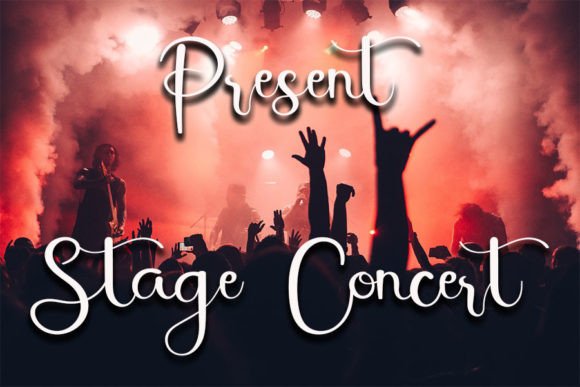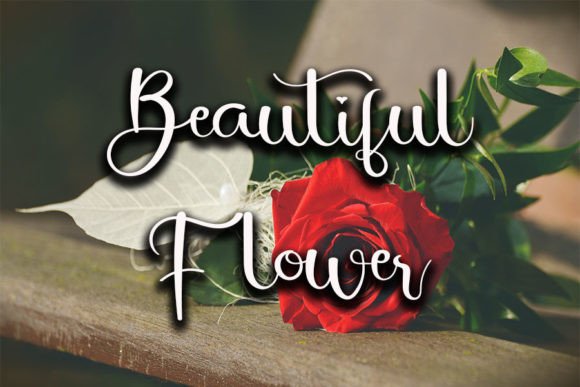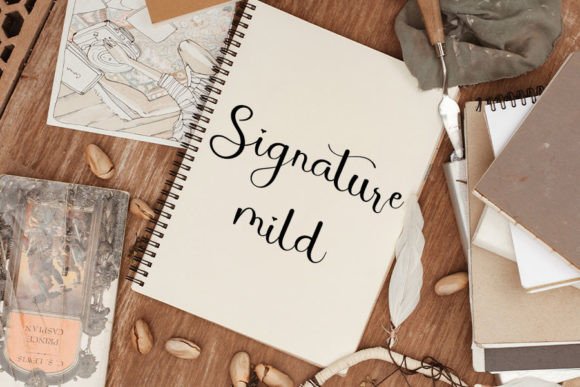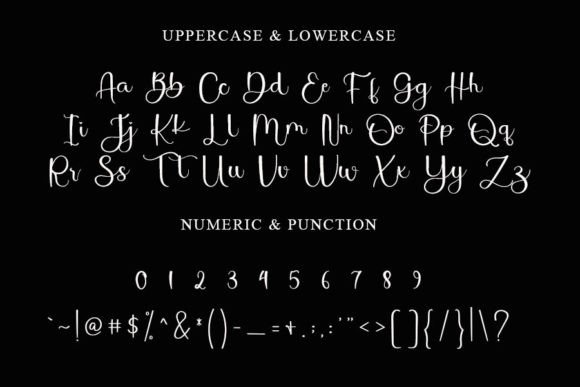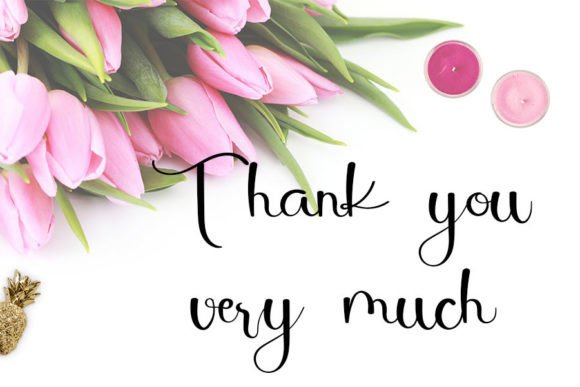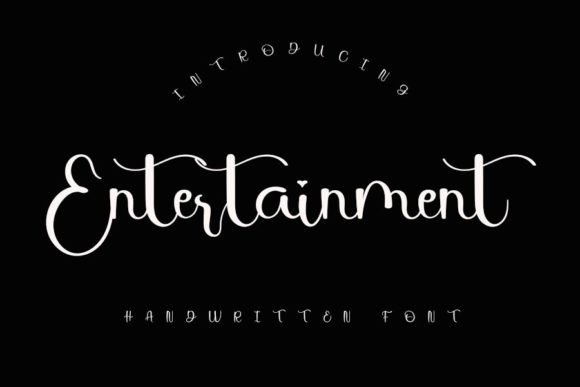
Introducing Entertainment Font: The Perfect Choice for Romantic and Personalized Designs
Are you a designer or crafter looking for a font that can add a touch of elegance and romance to your designs? Look no further than Entertainment Font, a slim and delicate handwritten font that’s perfect for creating beautiful wedding invitations, cards, and other personalized designs. In this article, we’ll take a closer look at Entertainment Font, its features, and how you can use it to take your designs to the next level.
What is Entertainment Font?
Entertainment Font is a beautiful, handwritten font that’s designed to add a touch of romance and whimsy to your designs. This font is characterized by its slim and delicate lines, which give it a dainty and joyful feel. Whether you’re creating wedding invitations, greeting cards, or other personalized designs, Entertainment Font is the perfect choice.
Key Features of Entertainment Font
So, what makes Entertainment Font so special? Here are some of its key features:
- Slim and delicate lines: Entertainment Font features slim and delicate lines that give it a elegant and refined feel.
- Handwritten style: This font has a beautiful, handwritten style that’s perfect for creating personalized designs.
- Dainty and joyful feel: The font’s dainty and joyful feel makes it perfect for creating designs that are romantic and whimsical.
- Versatile: Entertainment Font is versatile and can be used for a wide range of designs, from wedding invitations to greeting cards and more.
How to Use Entertainment Font in Your Designs
Now that we’ve covered the features of Entertainment Font, let’s take a look at how you can use it in your designs. Here are some ideas to get you started:
- Wedding invitations: Entertainment Font is perfect for creating beautiful wedding invitations that are romantic and elegant.
- Greeting cards: This font is also great for creating greeting cards for special occasions, such as birthdays, anniversaries, and more.
- Personalized gifts: Entertainment Font can be used to create personalized gifts, such as customized mugs, tote bags, and more.
- Stationery: This font is perfect for creating beautiful stationery, such as notebooks, journals, and more.
Tips for Using Entertainment Font
Here are some tips for using Entertainment Font in your designs:
- Pair it with other fonts: Entertainment Font can be paired with other fonts to create a unique and interesting design.
- Use it in combination with images: This font can be used in combination with images to create a beautiful and eye-catching design.
- Experiment with different colors: Entertainment Font can be used with a wide range of colors, so don’t be afraid to experiment and find the perfect combination for your design.
In conclusion, Entertainment Font is a beautiful and versatile font that’s perfect for designers and crafters who want to add a touch of romance and elegance to their designs. With its slim and delicate lines, handwritten style, and dainty and joyful feel, this font is ideal for creating beautiful wedding invitations, cards, and other personalized designs. So why not give Entertainment Font a try and see how it can take your designs to the next level?
Whether you’re a seasoned designer or a crafter just starting out, Entertainment Font is a great addition to your font collection. So go ahead, get creative, and see what amazing designs you can create with Entertainment Font!